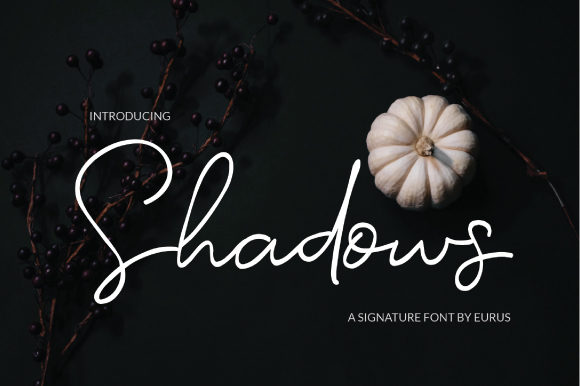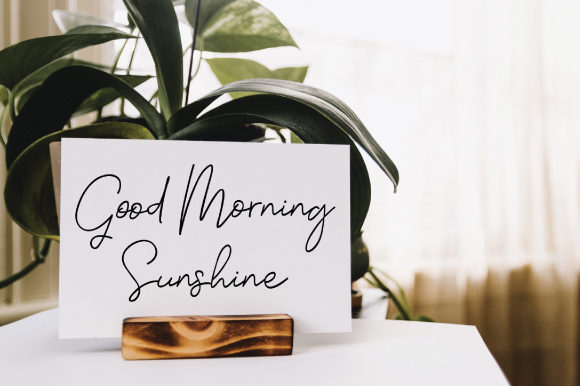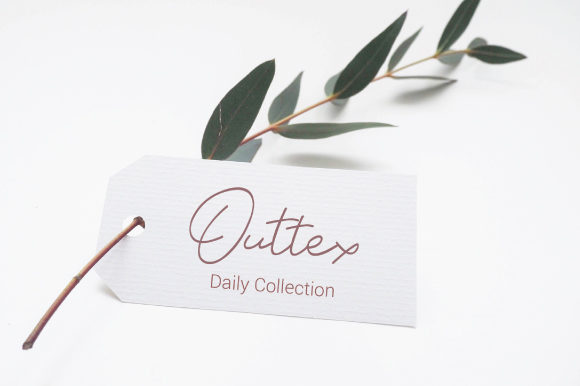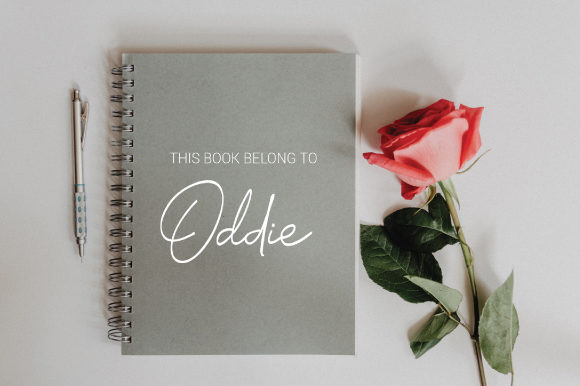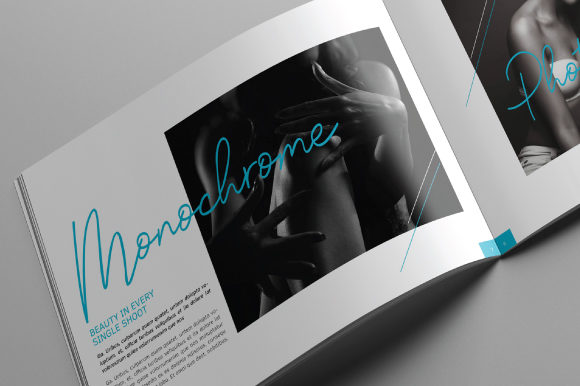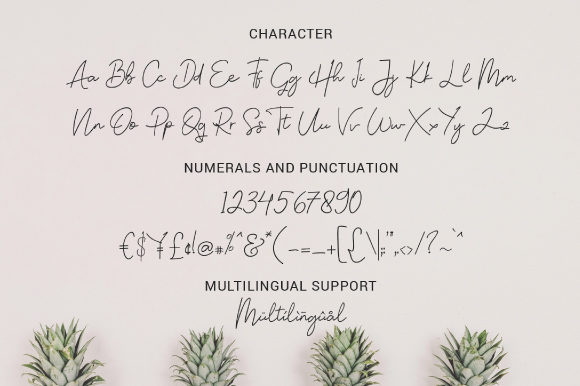
HomeScript FontsShadows Font Script Fonts Shadows Font FacebookXPinterestWhatsApp Shadows Font Poster 2 Shadows Font Poster 3 Shadows Font Poster 4 Shadows Font Poster 5 Shadows Font Poster 6 Shadows Font Poster 7 About Shadows Font Shadows is a smooth and charming script font that works like a charm. Get inspired by its bold style! DOWNLOAD ON CREATIVE FABRICAThis font is sold and delivered by Creative Fabrica. Font Canyon may earn a commission if you buy through this link. People also explored Mini Heart Font Mango Salsa with Bouncy Handwritten Script Font Style Ladybugs Font Suzanstein Font Planet Joy Font Gogat Font Plectrum Calista Font The Winter Font 430 0 TagsShadows Font Previous articleMoon Line FontNext articleUrsula Handschrift Font LEAVE A REPLY Cancel reply Comment: Please enter your comment! Name:* Please enter your name here Email:* You have entered an incorrect email address! Please enter your email address here Website: Save my name, email, and website in this browser for the next time I comment. Personal Use Free Black Personal Use Free Read more about this font Browie Personal Use Free Read more about this font Good Mood Personal Use Free Read more about this font Aelten Personal Use Free Read more about this font BLOG Where to Buy American Fonts Online in 2024 Where to Buy American Fonts Online: The Ultimate Guide for 2024 Looking for the perfect American font to elevate your design projects? You're in the... The 10 Best Handwriting Fonts to Add Personality to Your Designs Best Fonts for T-Shirt Design – Top 2025 Picks How to Install and Use Fonts on Windows, macOS, and Web Projects